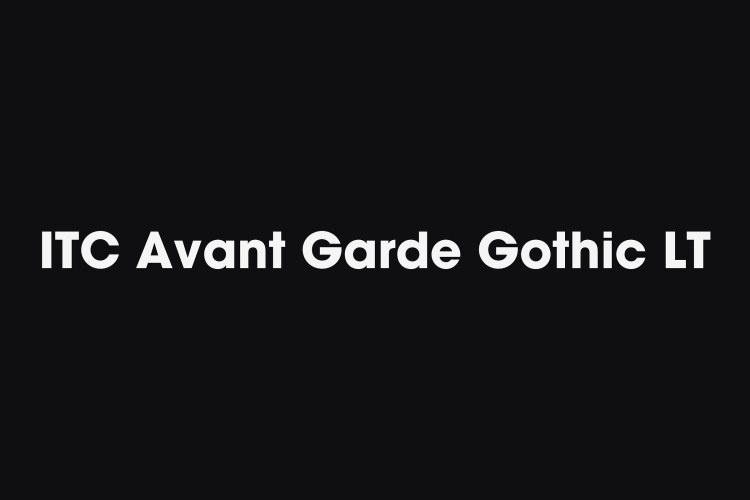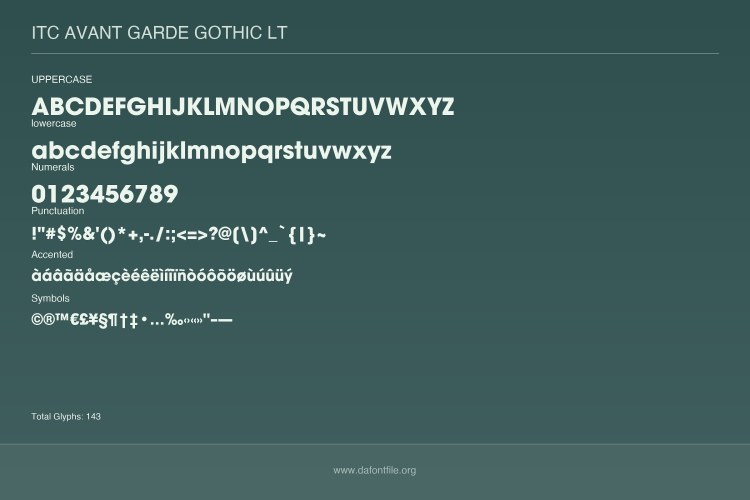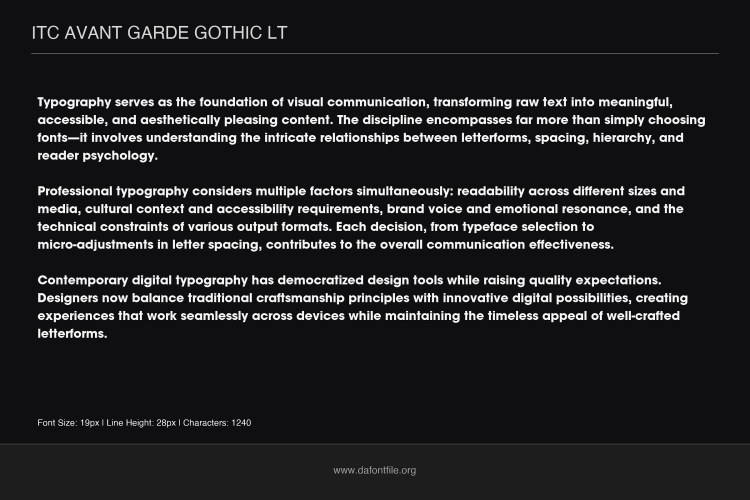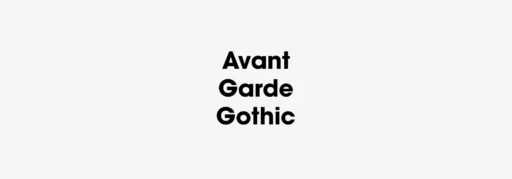
Avant Garde Gothic Font
Avant Garde Gothic is a geometric sans serif typeface known for its clean lines and bold shapes. Originally designed for Avant Garde magazine, the font captures the mode…
Avant Garde Gothic is a geometric sans serif typeface known for its clean lines and bold shapes. Originally designed for Avant Garde magazine, the font captures the modernist spirit of the 1970s. Its balanced geometry and tight spacing make it perfect for logos, posters, headlines, and contemporary branding. Designers use Avant Garde Gothic to add a sleek, artistic, and professional touch to their work.
Where Avant Garde Gothic Font works best
Avant Garde Gothic Font stays legible at small sizes, which makes it a strong choice for navigation, buttons and dashboards in web design and app interfaces.
Clean sans serifs like Avant Garde Gothic Font are the default language of SaaS, fintech and product branding.
What is Avant Garde Gothic Font good for?
Avant Garde Gothic Font is a Sans Serif Fonts typeface tagged Bold, Branding, Clean, Creative. It works well for headlines, logos, posters, social media graphics and branding projects that need a distinctive sans serif fonts look.